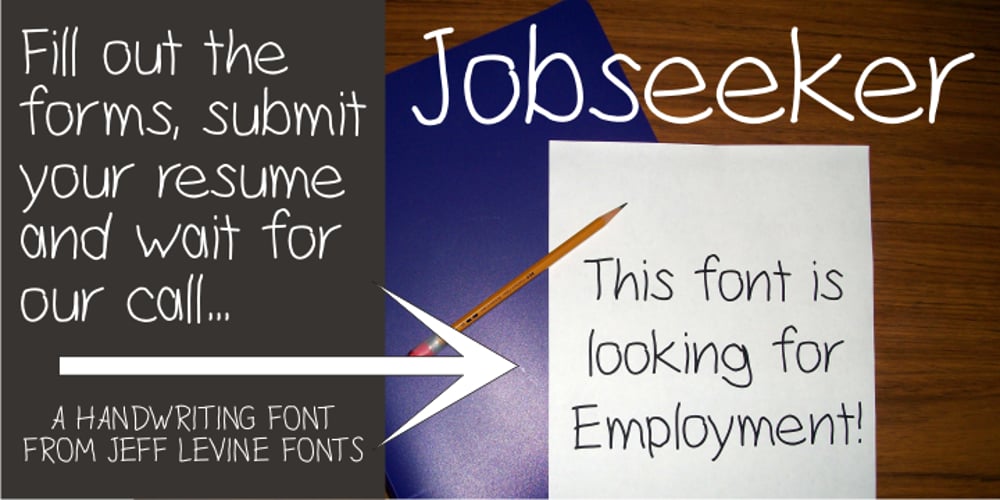
Jobseeker JNL Font Family was designed by Jeff Levine and published by Jeff Levine. Jobseeker JNL contains 1 styles and family package options. At one time or another, everyone has filled out a job application. Jobseeker JNL emulates a hand-printed alphabet and numerals as one would find on such forms, but it is also useful for any project where a simple handwritten block print is needed.